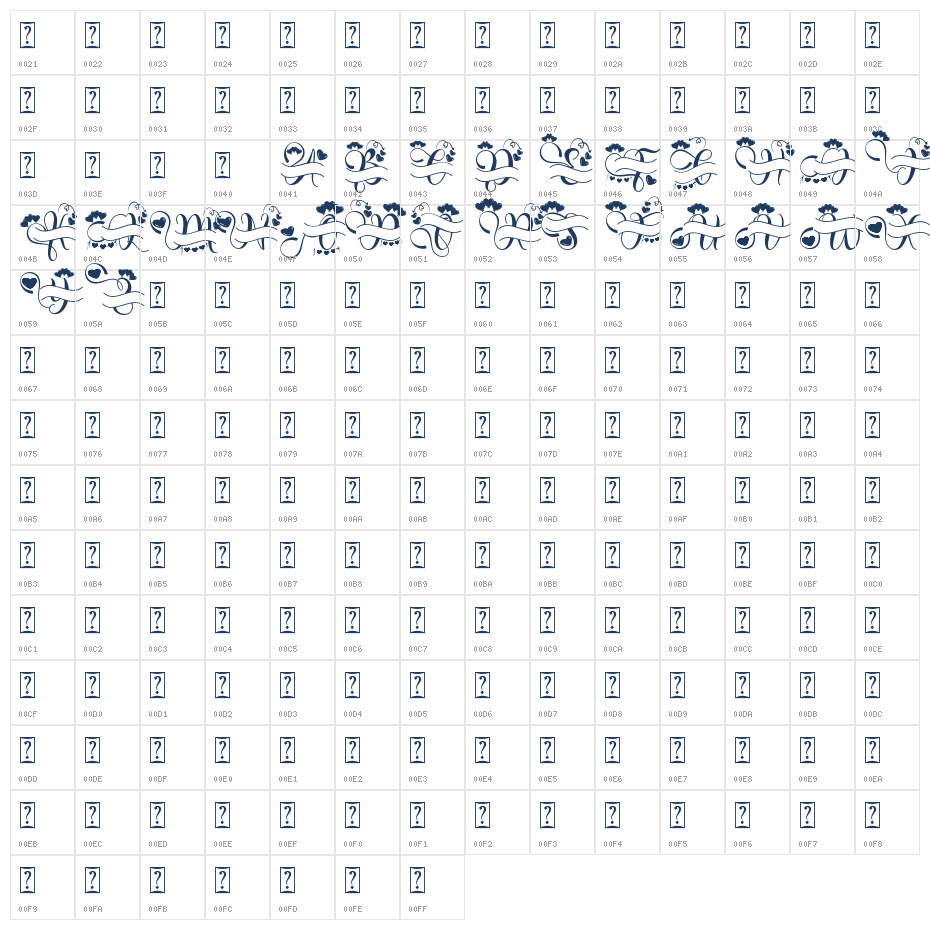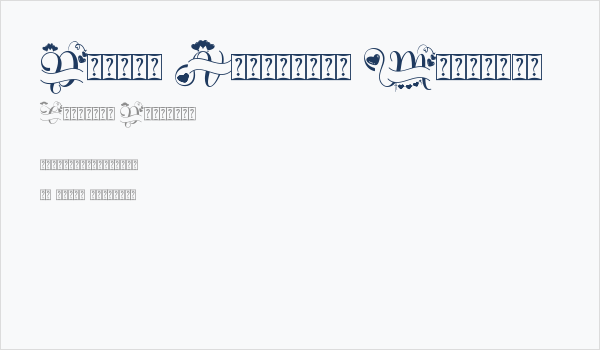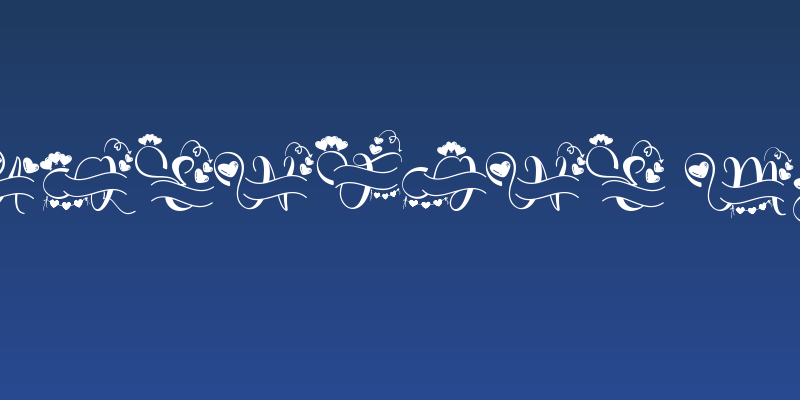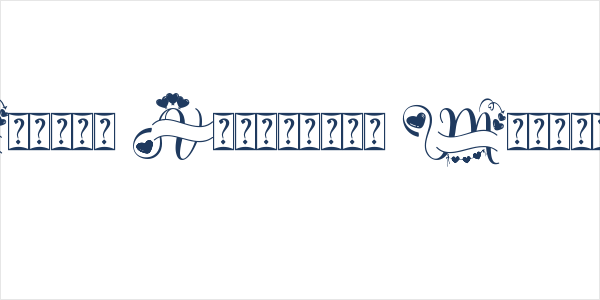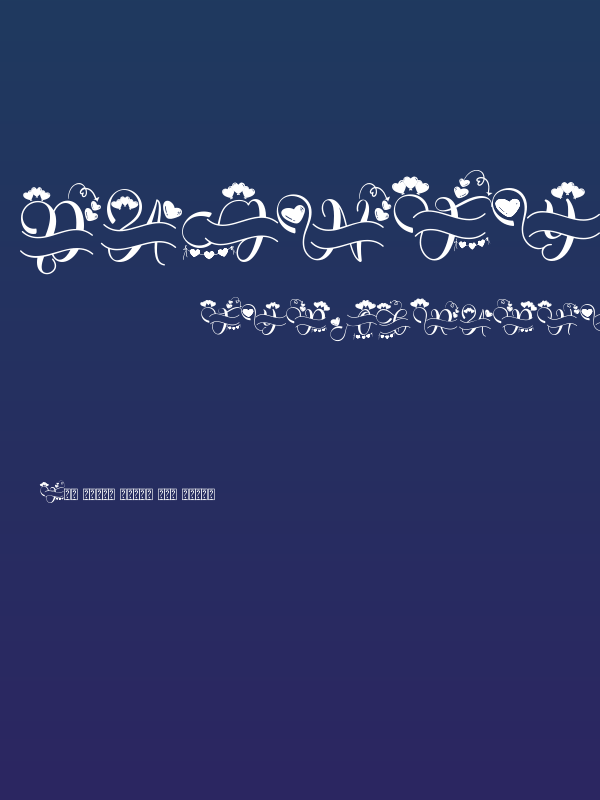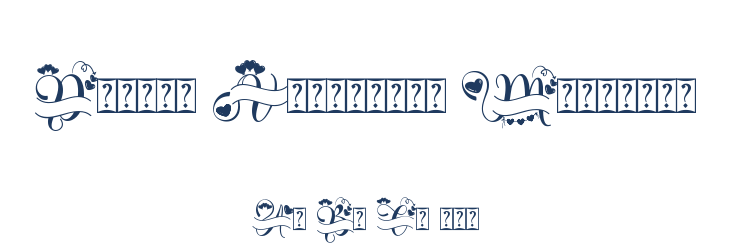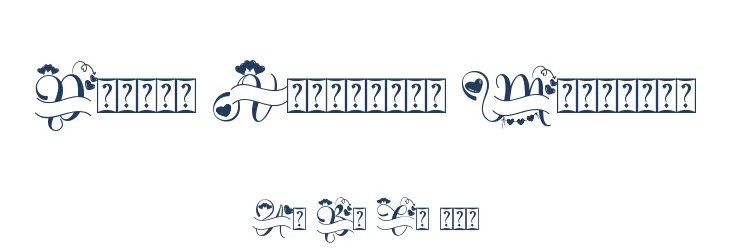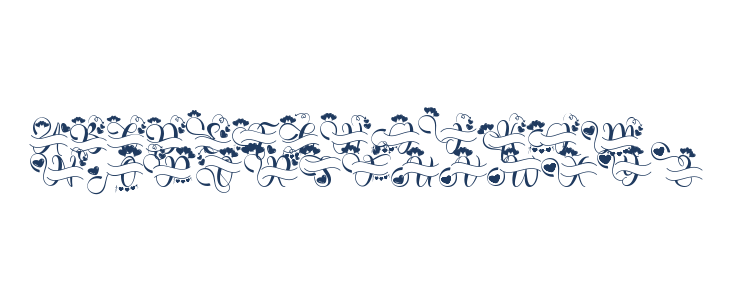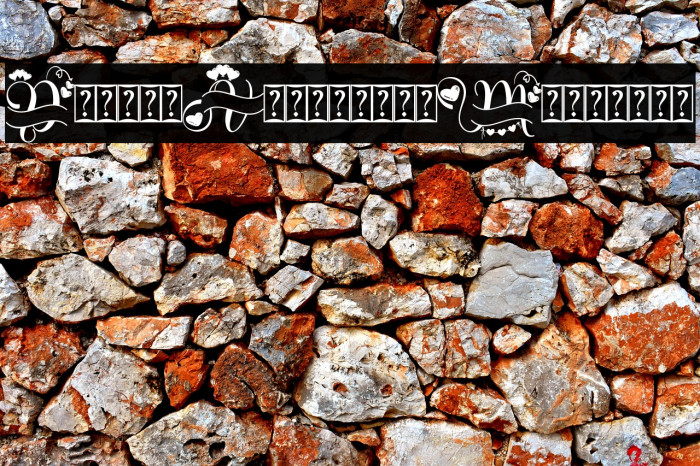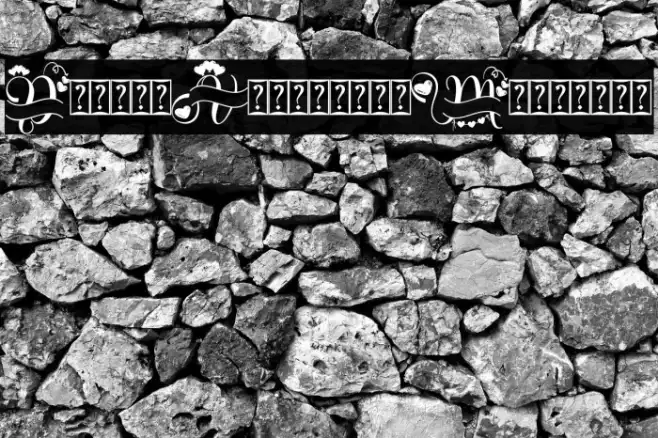
Dainty Valentine Monogram Font
Dainty Valentine Monogram Description
Decorative, ornate script font with intricate flourishes and embellishments.
Dainty Valentine Monogram
| Overall Style | Vintage, Ornate, Elegant |
| Use Case | Headlines, Logos, Invitations, Decorative Text |